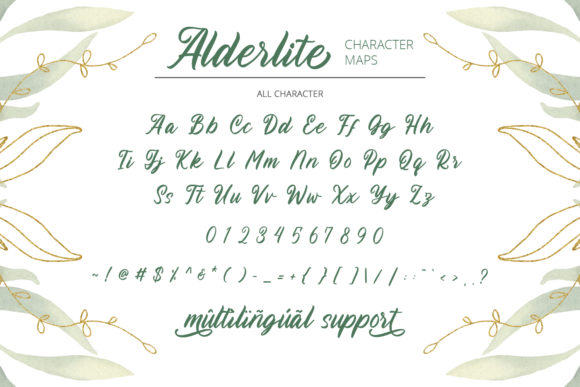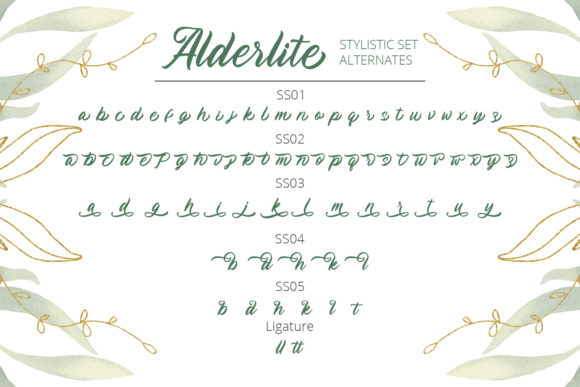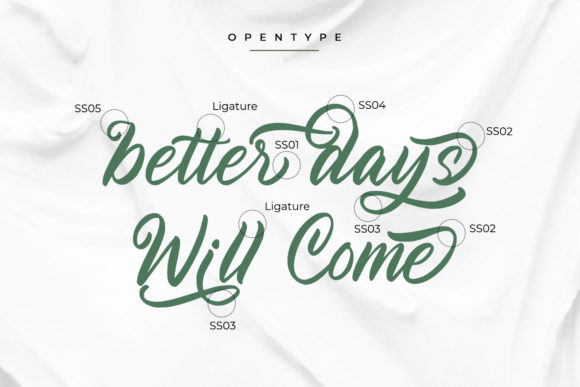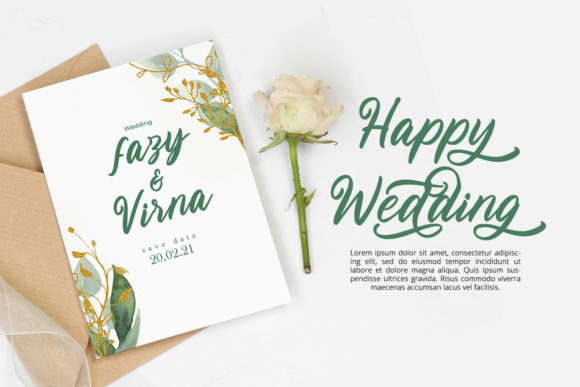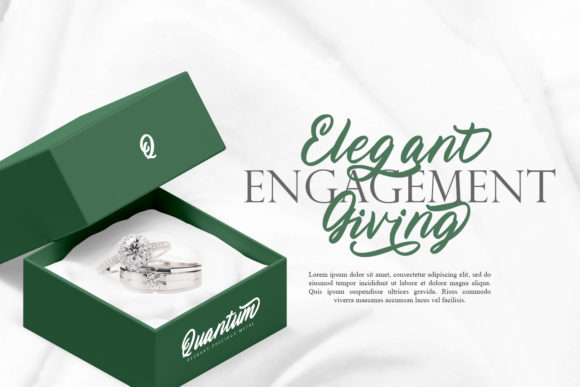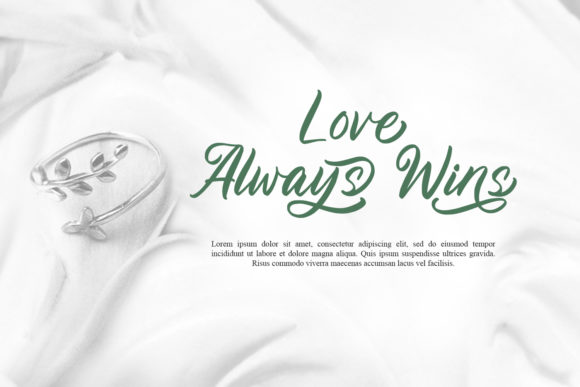
Alderlite Font
About Alderlite Font
Alderlite is a delicate and elegant handwritten font with a classy style. Alderlite is best used for branding logotype, quotes and more.